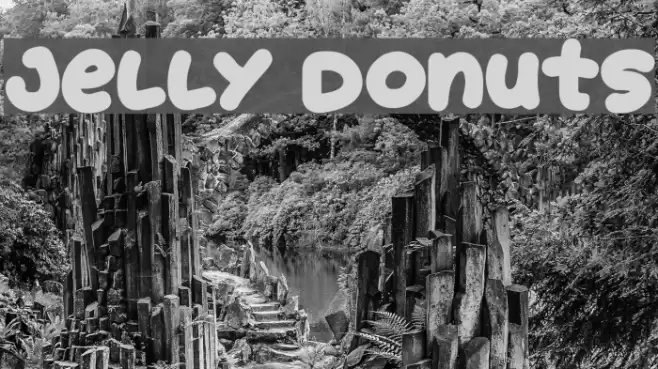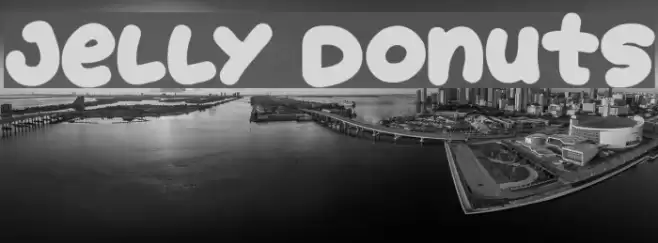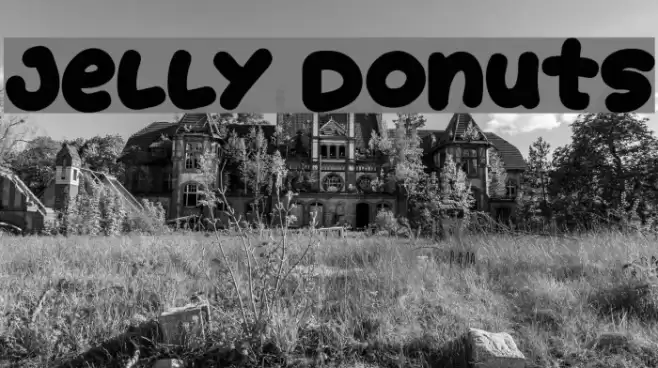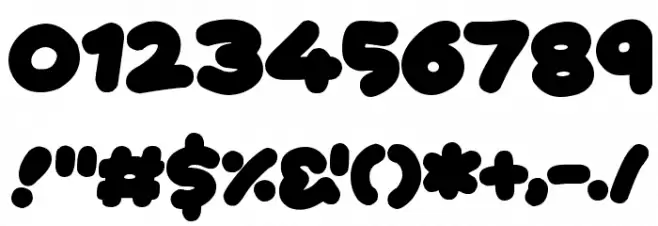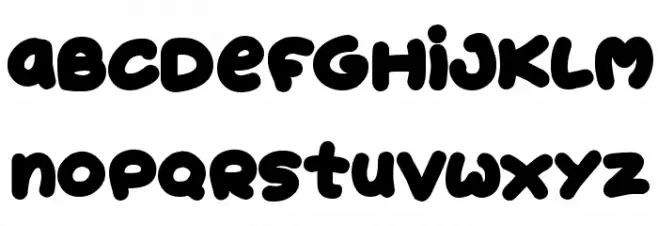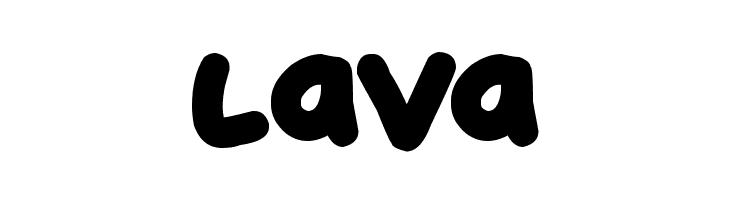
Jelly Donuts Font
Jelly Donuts Description
This playful and bold font features thick, rounded characters that evoke a sense of fun and whimsy. The letters are uniformly bold with a bubbly appearance, reminiscent of inflated balloons or jelly shapes. The strokes are consistent in width, creating a cohesive look across both uppercase and lowercase letters. The numbers and special characters maintain the same playful style, ensuring a harmonious design throughout. This font is ideal for projects that require a lively and energetic feel, such as children's books, party invitations, or playful branding.
A bold, playful font with rounded, bubbly characters from Uncategorized fonts.
- Proposed Projects: Ideal for children's books, party invitations, playful branding, and any project needing a fun, energetic vibe.
- Overall Style: Playful